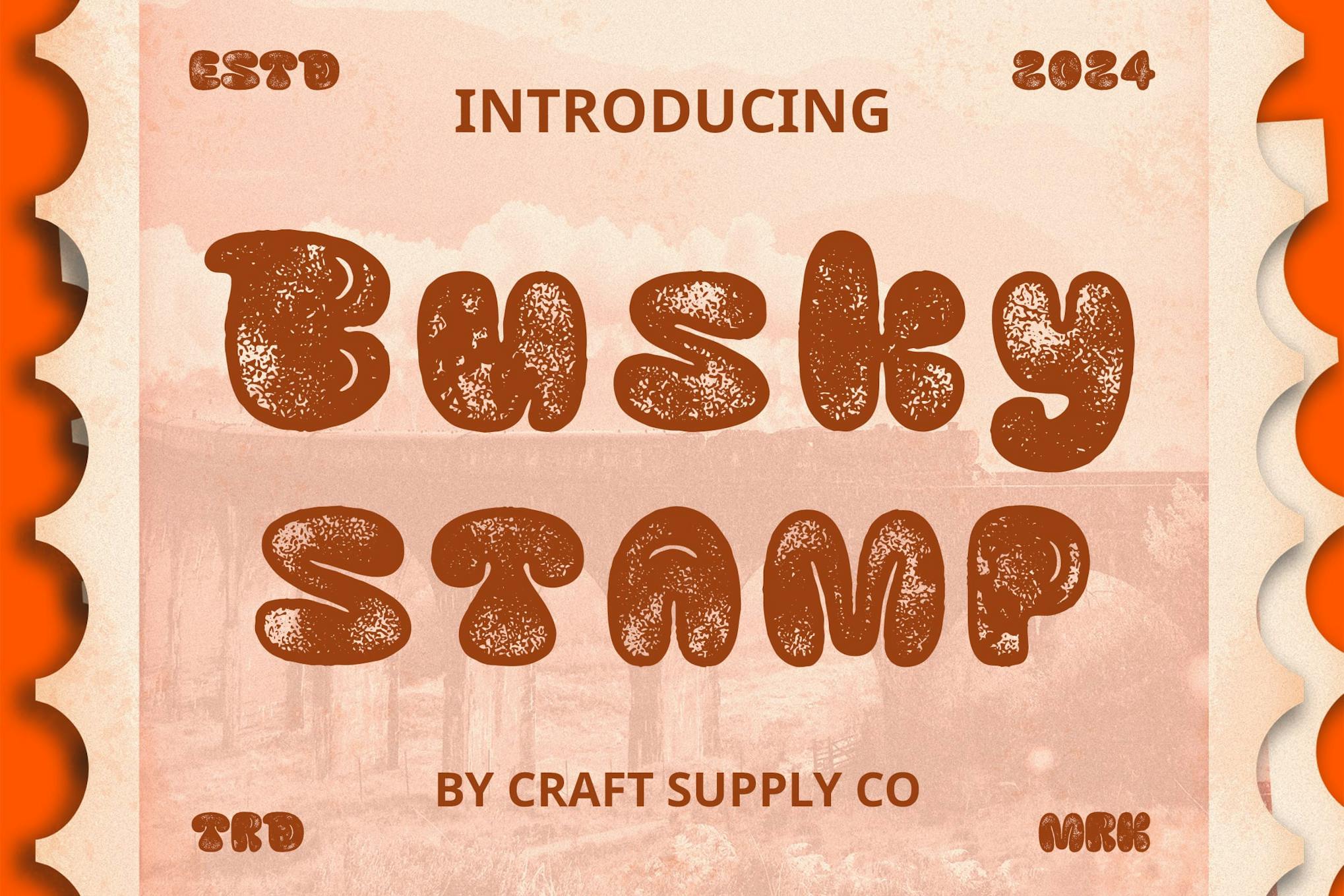
Busky Stamp Font
Busky Stamp Font energizes adventure outfitter branding, wilderness expedition materials, outdoor survival gear packaging, rugged camping equipment catalogs, forest ranger station signage, hiking trail documentation, outdoor adventure club identities, wilderness photography exhibitions, backcountry guide services, outdoor education programs, adventure tourism promotions, and expedition marketing campaigns where robust outdoor spirit and stamped authenticity create genuine wilderness experiences.
This robust typeface generates excitement through its perfect embodiment of rugged outdoor resilience and authentic wilderness character that creates typography forged in nature's most challenging environments. Busky Stamp Font captures the essence of outdoor adventure with its deliberately weathered stamp effects that suggest equipment tags battered by mountain winds, trail markers worn by countless expeditions, and documentation stamped by wilderness authorities certifying authentic outdoor experiences. The font's rugged design approach incorporates elements that evoke campfire smoke, trail dust, and the honest wear patterns that develop on gear used in genuine outdoor adventures. Its distinctive character reflects the durability, authenticity, and outdoor wisdom that define real wilderness expertise and adventure credibility.
The Busky Stamp Font family includes multiple expedition variations such as Regular, Bold, Light, Weathered, and Trail versions, each maintaining the font's characteristic outdoor authenticity while offering different levels of wilderness impact. The collection features stamp-distressed textures, outdoor weathering effects, and expedition styling that enhance its adventure credibility. Additional elements include compass symbols, trail markers, outdoor equipment ornaments, and wilderness decorative borders that reinforce the font's connection to authentic outdoor adventure and expedition documentation.
Whether you're designing outdoor gear catalogs, creating wilderness expedition materials, developing adventure tourism campaigns, or crafting authentic outdoor communications, Busky Stamp Font delivers unmatched wilderness authenticity. Its ability to convey outdoor durability, adventure credibility, and wilderness expertise makes it invaluable for outdoor professionals seeking typography that genuinely reflects the rugged reliability essential for wilderness adventures. The font's stamped presence ensures your designs will communicate the authentic outdoor character and proven wilderness experience that define exceptional adventure communications and outdoor expedition credibility.